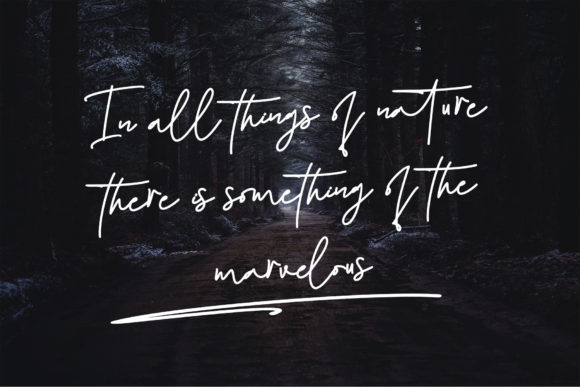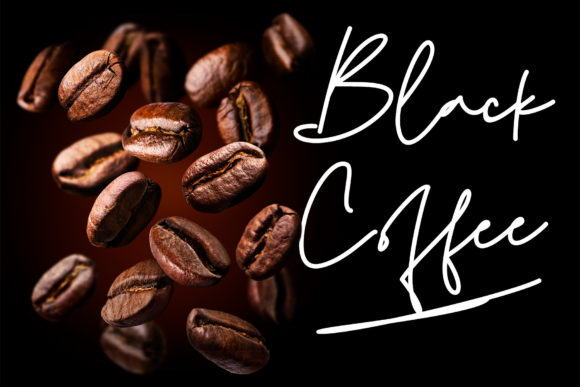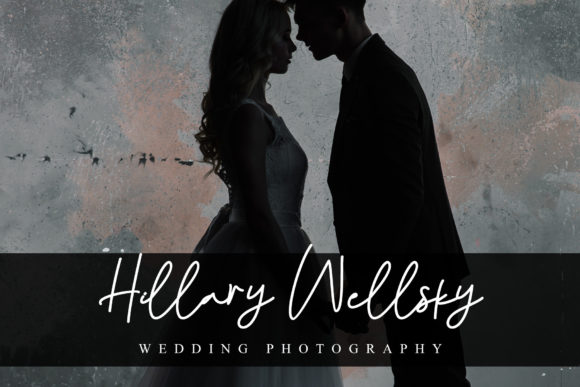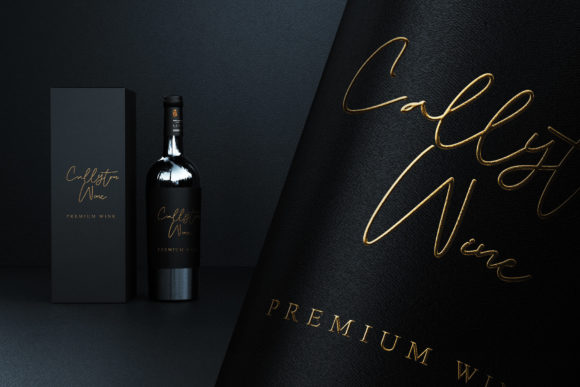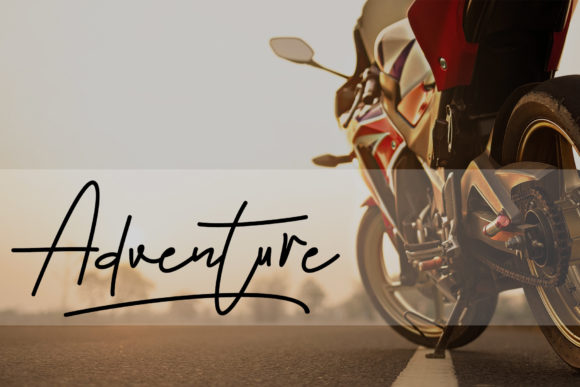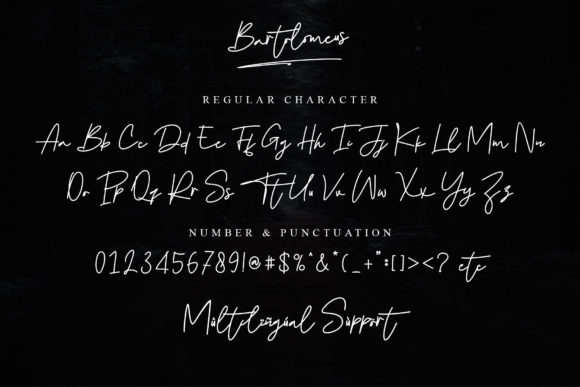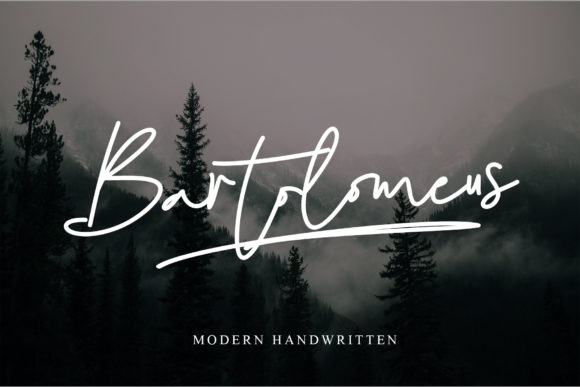
Bartolomeus Font: Elevate Your Designs with a Beautiful Handwritten Style
Are you looking for a font that adds a touch of elegance and sophistication to your designs? Look no further than Bartolomeus Font, a stunning handwritten font that is sure to make your projects stand out. With its unique feel and stunning impact, Bartolomeus is the perfect choice for designers and crafters who want to add a personal touch to their work.
What Makes Bartolomeus Font So Special?
Bartolomeus Font is a beautiful and light handwritten font that features a distinctive style that sets it apart from other fonts. Its unique feel and stunning impact make it perfect for a wide range of design projects, from branding and advertising to packaging and digital media. Whether you’re looking to create a bold statement or add a touch of subtle elegance, Bartolomeus Font is the perfect choice.
PUA Encoding for Easy Access to Glyphs and Ligatures
One of the standout features of Bartolomeus Font is its PUA (Private Use Area) encoding. This means that you can access all of the amazing glyphs and ligatures with ease, giving you even more creative freedom to experiment with different styles and effects. With PUA encoding, you can easily insert glyphs and ligatures into your designs, allowing you to create complex and visually appealing text arrangements.
Bartolomeus Font is a versatile font that is perfect for designers and crafters who want to add a personal touch to their work. Whether you’re creating branding materials, such as logos and business cards, or crafting digital media, such as social media graphics and blog posts, Bartolomeus Font is the perfect choice. Its elegant and refined style makes it suitable for a wide range of projects, from formal and professional to playful and creative.
Key Features of Bartolomeus Font
- Beautiful and light handwritten font with a unique feel and stunning impact
- Perfect for a wide range of design projects, from branding and advertising to packaging and digital media
- Elegant and refined style suitable for formal and professional projects
- Easy to use and customize, with a range of glyphs and ligatures to experiment with
Tips and Tricks for Getting the Most Out of Bartolomeus Font
To get the most out of Bartolomeus Font, try experimenting with different font sizes, colors, and styles. You can also combine Bartolomeus Font with other fonts to create a unique and eye-catching effect. Here are a few tips and tricks to try:
- Use Bartolomeus Font as a headline font to add a touch of elegance and sophistication to your designs
- Combine Bartolomeus Font with a bold font to create a striking contrast
- Experiment with different glyphs and ligatures to add visual interest to your designs
- Use Bartolomeus Font in combination with images and graphics to create a visually appealing design
Bartolomeus Font is a beautiful and versatile handwritten font that is perfect for designers and crafters who want to add a touch of elegance and sophistication to their work. With its unique feel and stunning impact, Bartolomeus Font is sure to make your designs stand out. Its PUA encoding makes it easy to access a range of glyphs and ligatures, giving you even more creative freedom to experiment with different styles and effects. So why not give Bartolomeus Font a try and see the difference it can make in your designs?